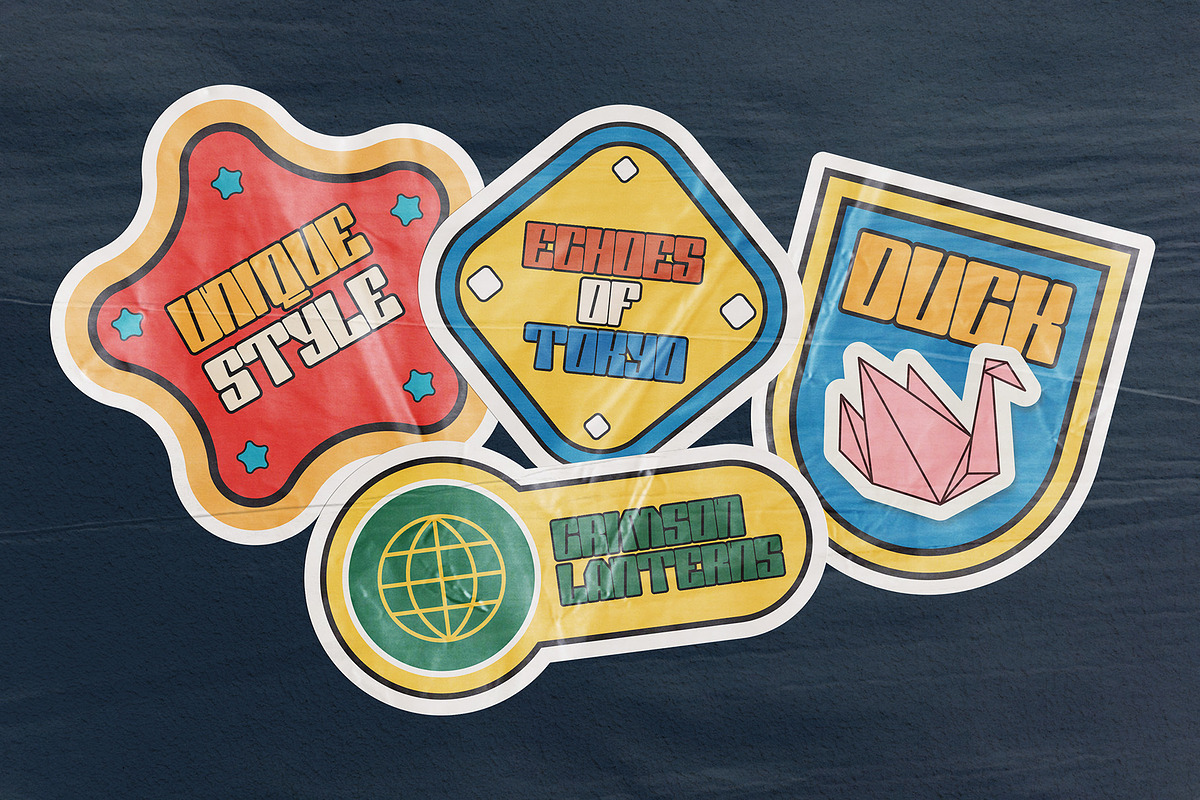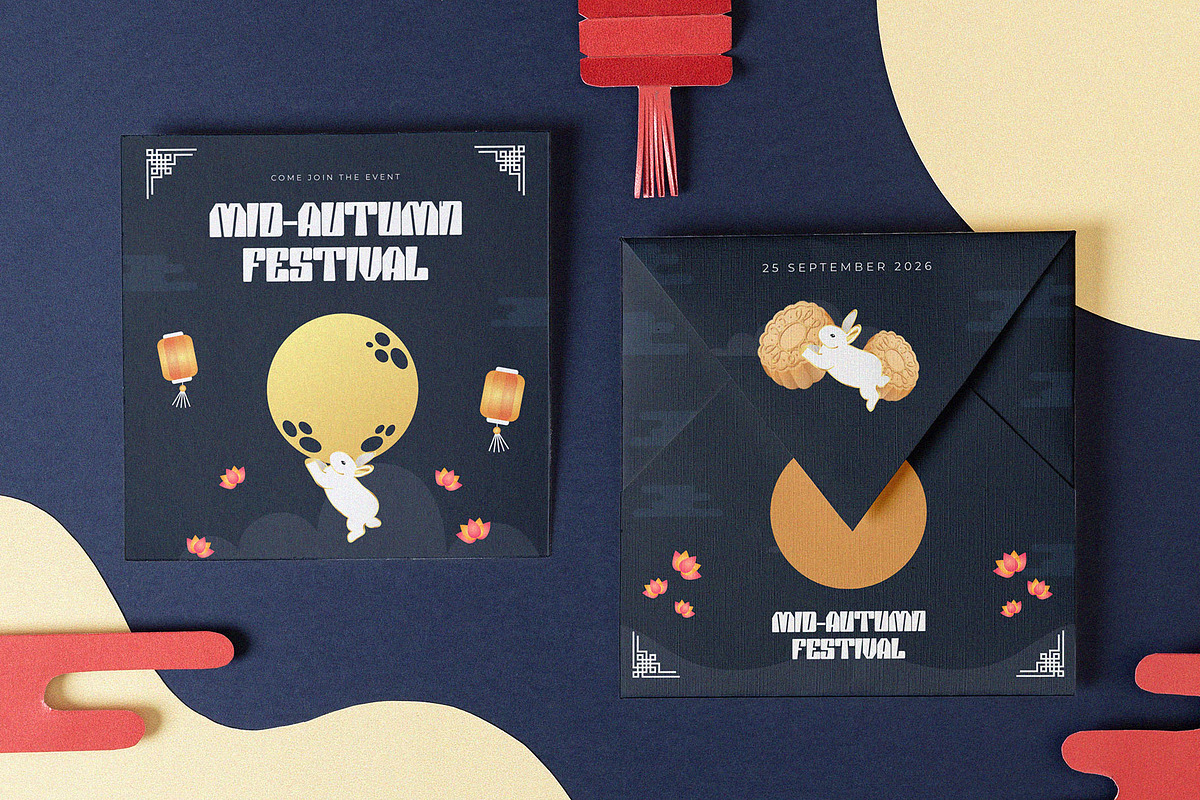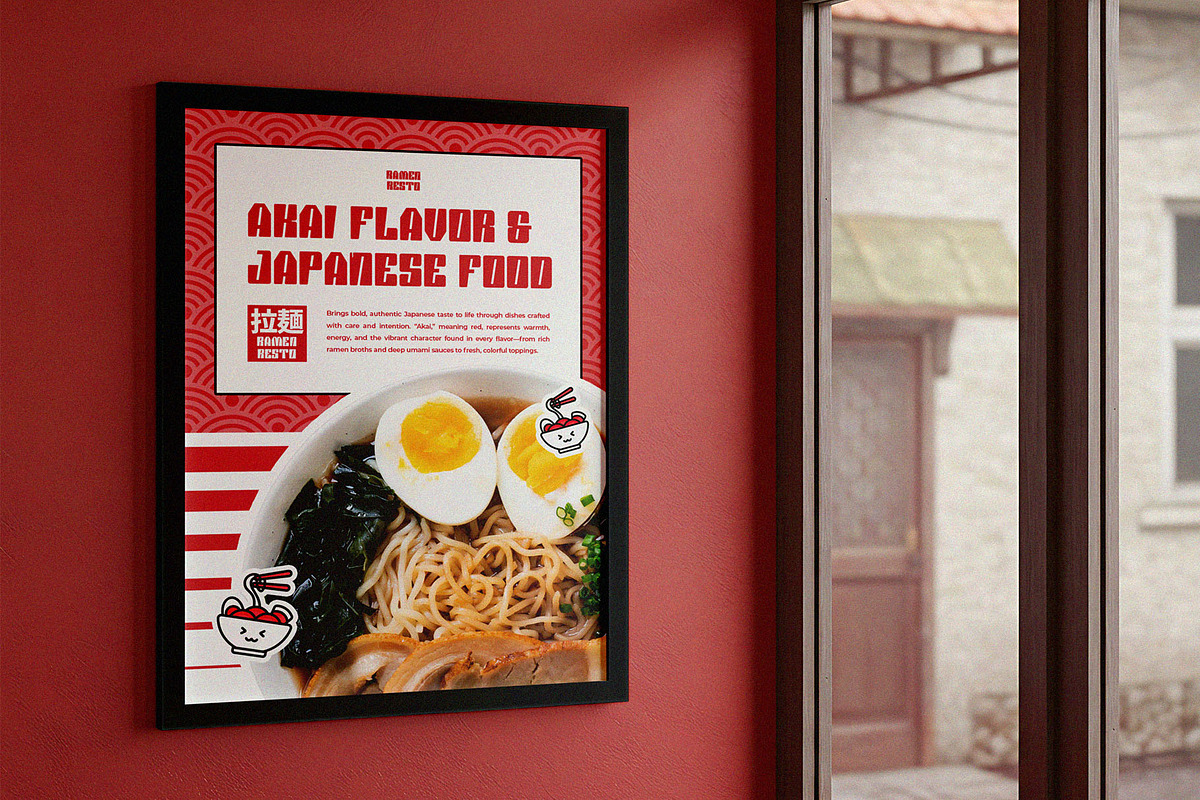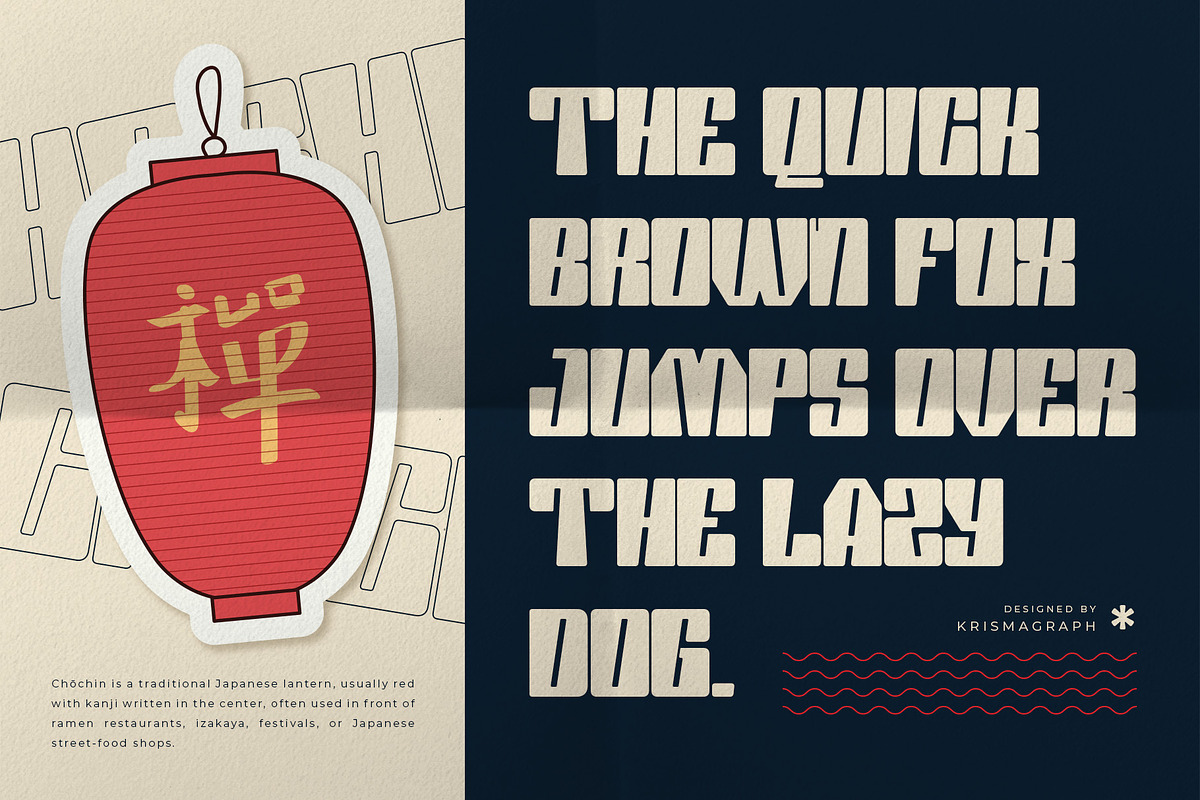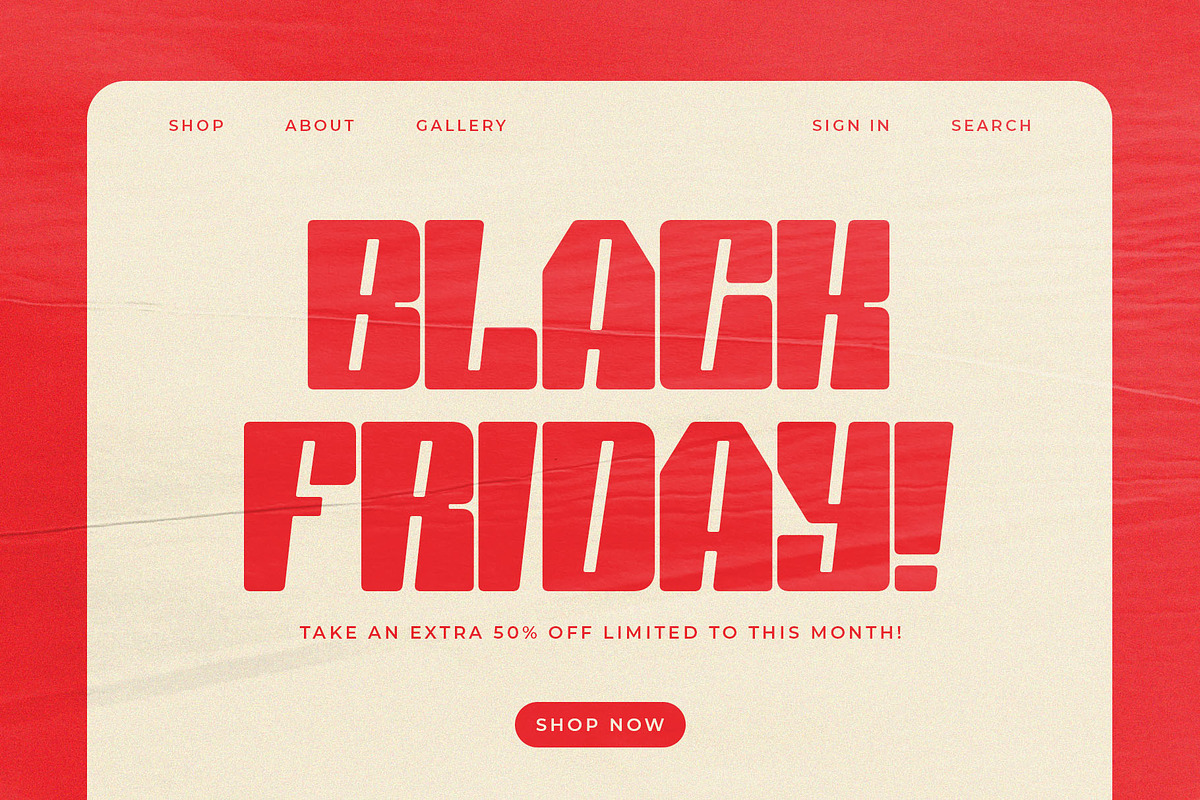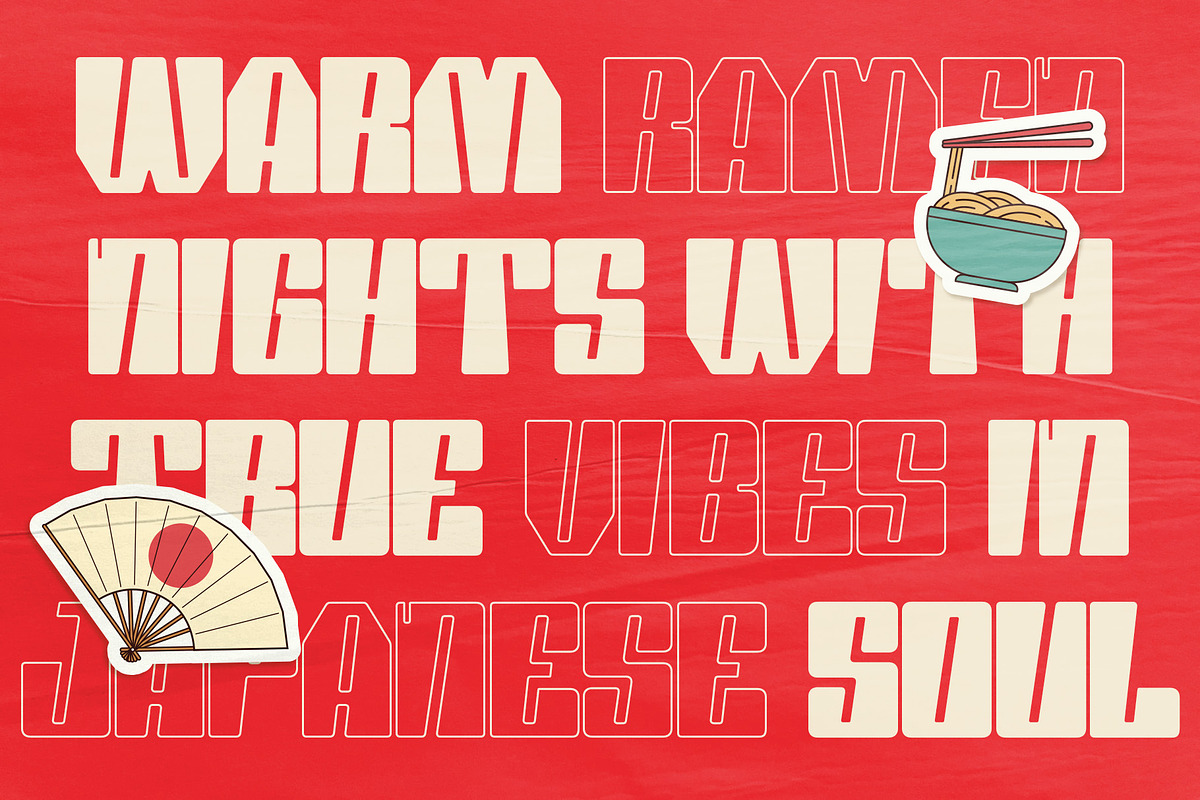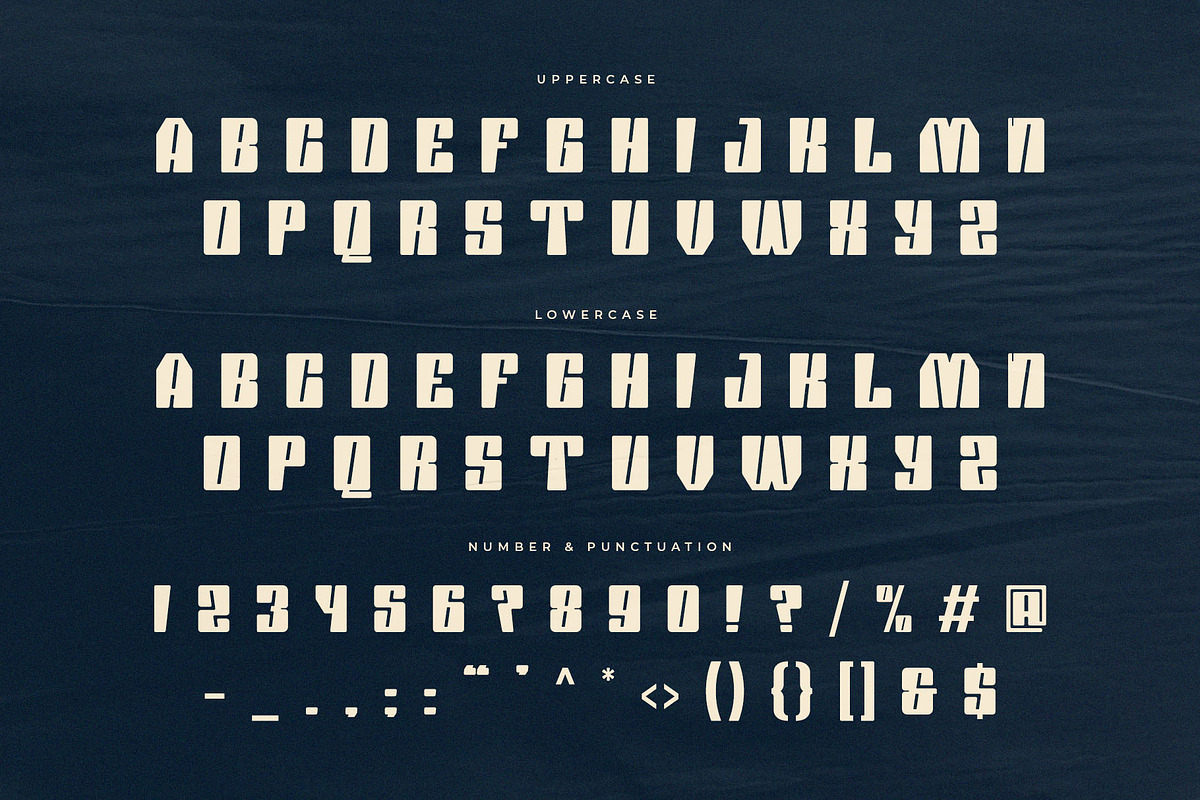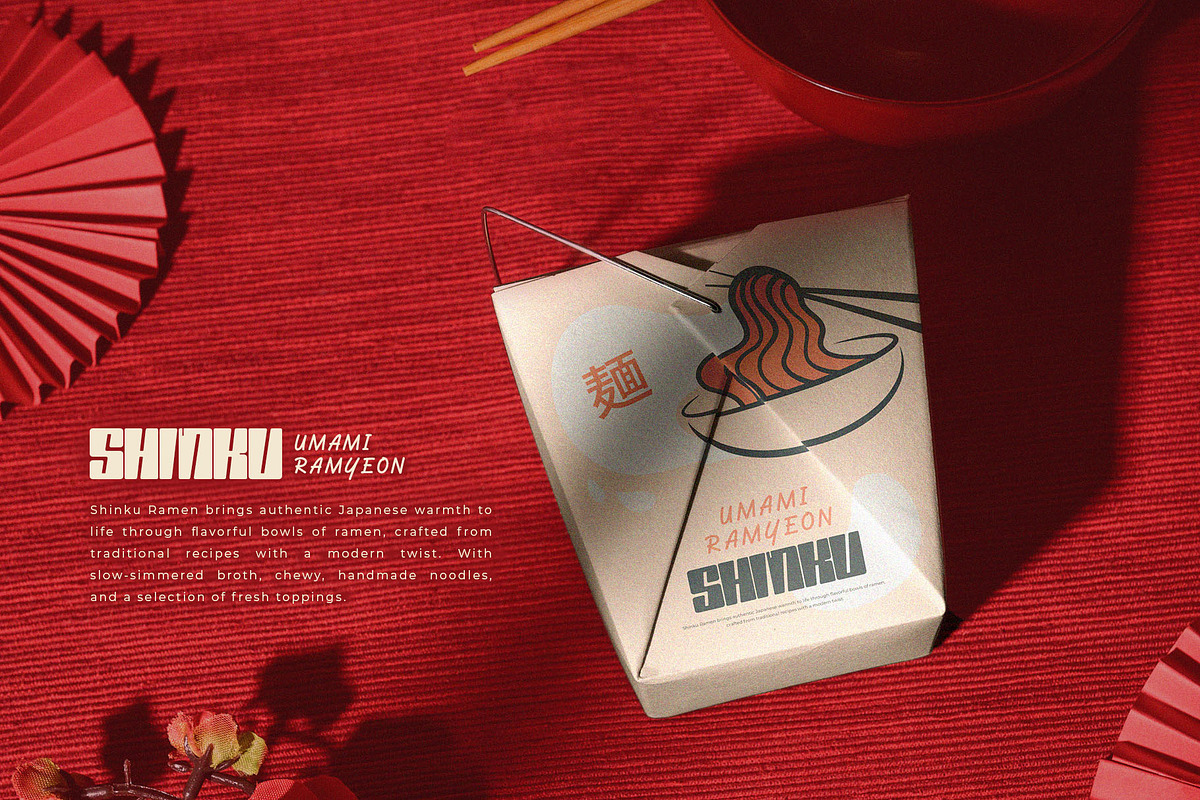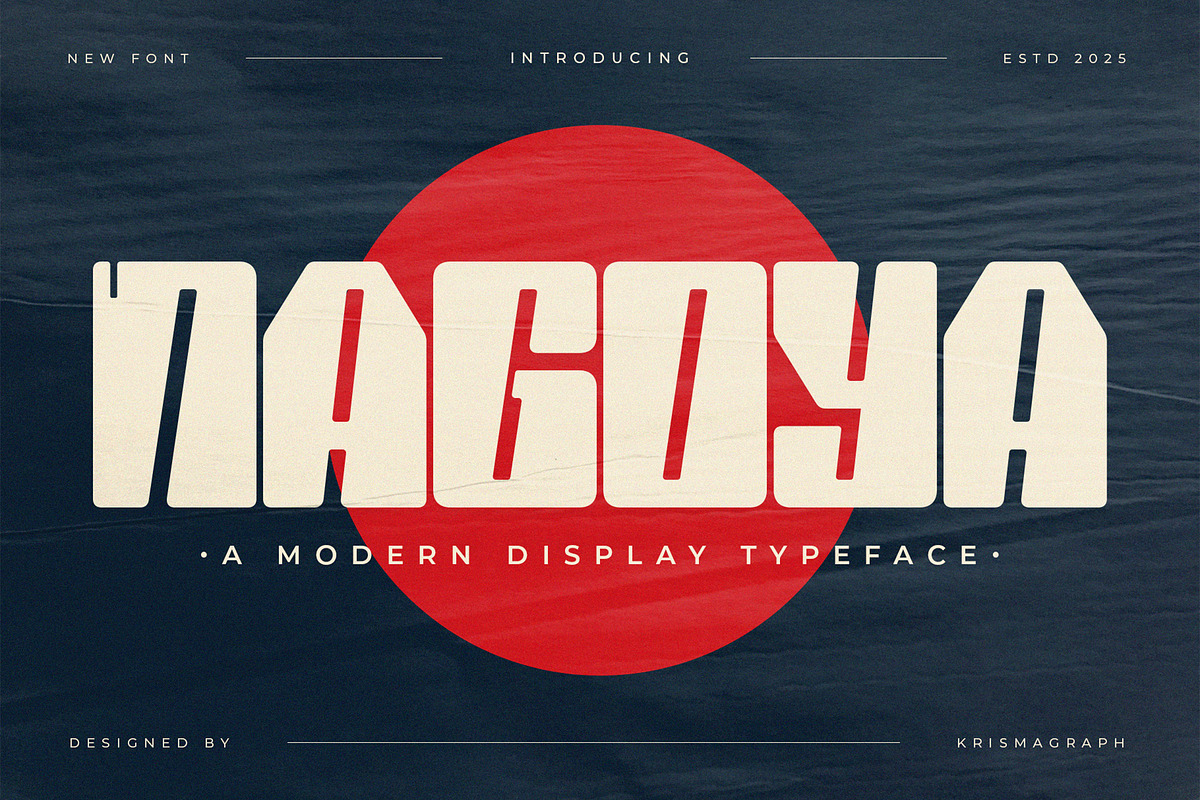
NAGOYA — Modern Display Typeface
Nagoya is a modern display typeface featuring bold geometry, strong structure, and contemporary character. Inspired by Japanese-influenced poster typography and modern editorial layouts, this font delivers a confident and clean visual identity. It performs exceptionally well for headlines, posters, branding systems, editorial layouts, and digital projects that demand impact and clarity.
With balanced proportions and sharp details, Nagoya provides excellent legibility while maintaining a distinctive modern style. Supported by multilingual characters, it is built for global creative use.
- Numbers, fractions
- Punctuation and symbols
- All Caps